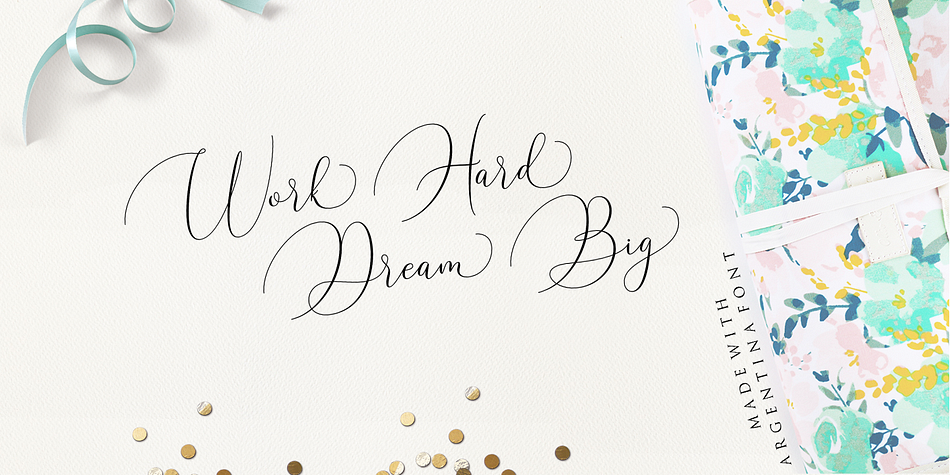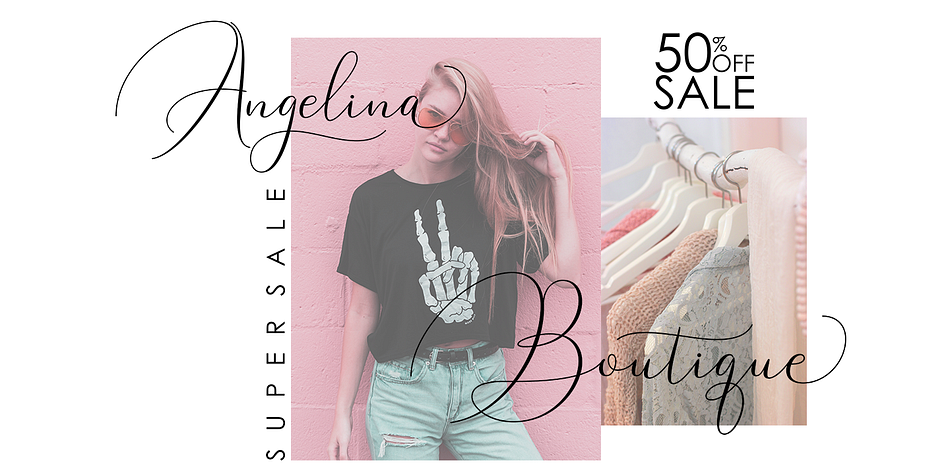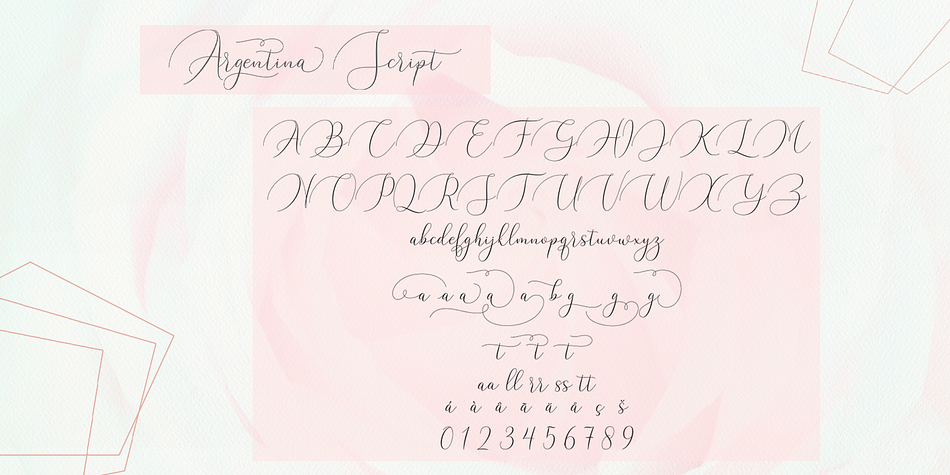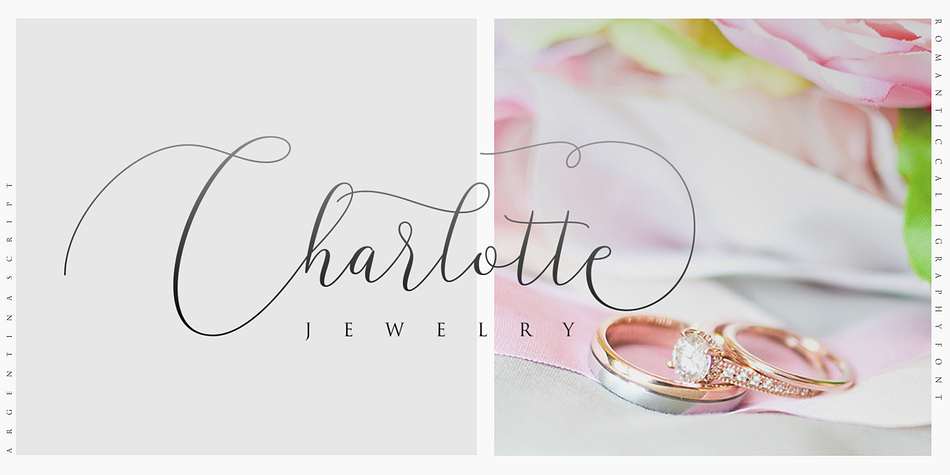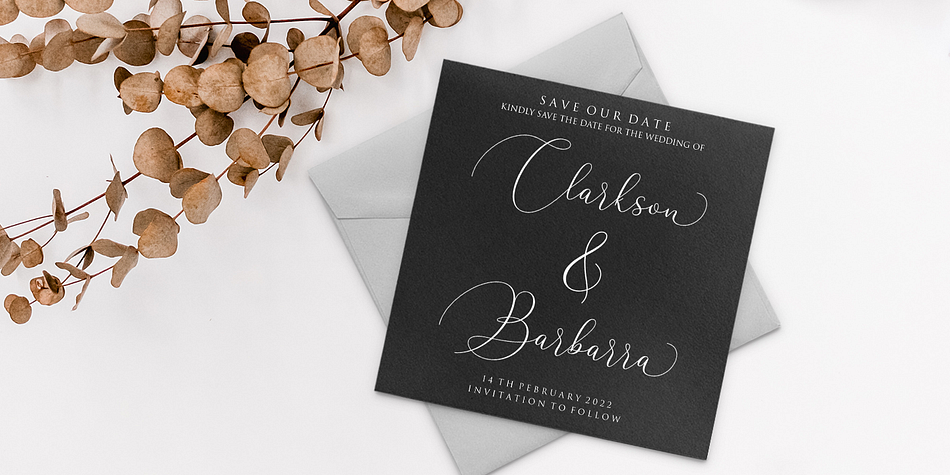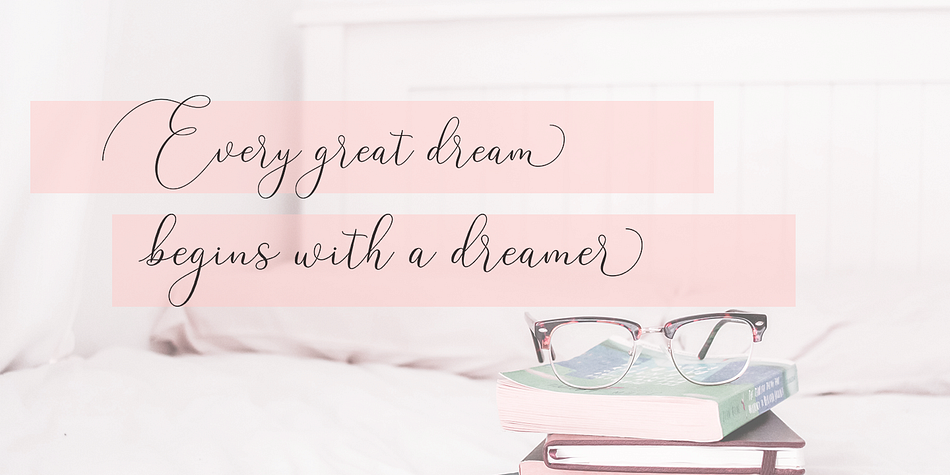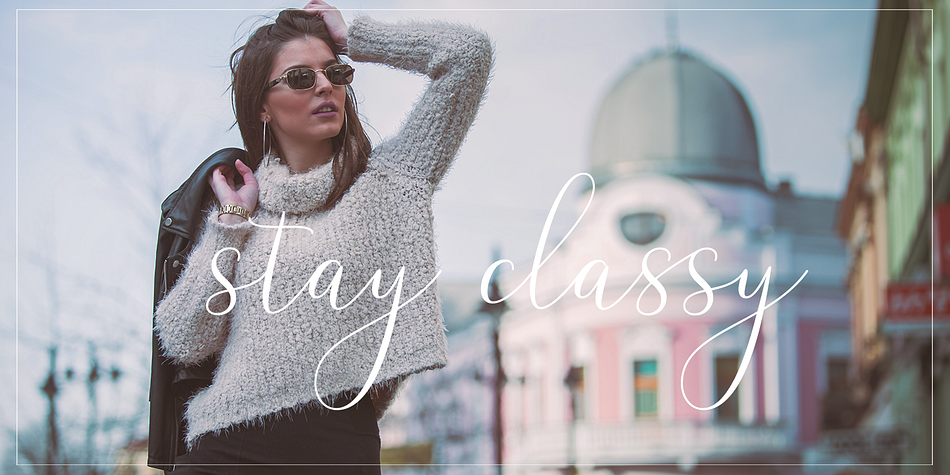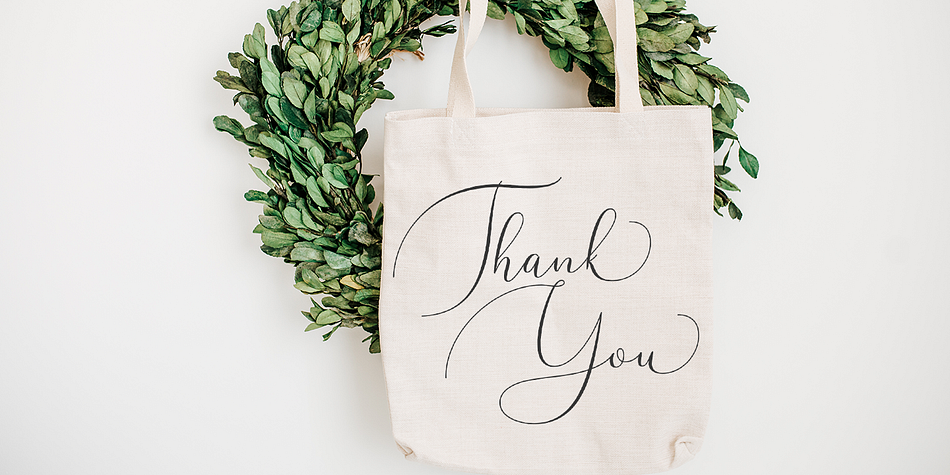
Argentina
Argentina is a modern calligraphy font family. This typeface has two styles and was published by Mega Type.
Argentina Script is a romantic calligraphy font including Regular and Slant, that features a varying baseline, smooth line, classic and elegant touch. Can be used for various purposes.such as headings, signature, logos, wedding invitation, t-shirt, letterhead, signage, lable, news, posters, badges etc.
Argentina Script features 360+ glyphs and 160+ alternate characters. including initial and terminal letters, alternates, ligatures and multiple language support.